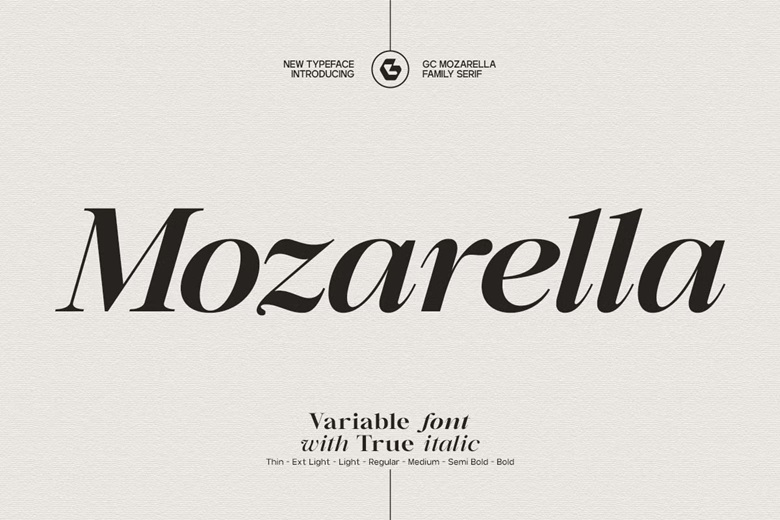
GC Mozarella Font Family
GC Mozarella is an elegant serif typeface that has an ancient charm with the contemporary flexibility. It is based on classic beauty and contemporary elegance as it is designed with elegant curves, contrast, and authentic italic designs. All the letterforms are also beautifully designed to add warmth, confidence and a little bit of luxury to any design. Ideal editorial layouts, fashion branding, packaging and luxury visual identities.
The use of proportions and accurate details makes GC Mozarella versatile but unique. It makes no difference whether you are making beautiful headings, polished body text, or logotypes which are expressive, this typeface is so strong in both appeal and readability across all weights.
GC Mozarella Serif Font Family